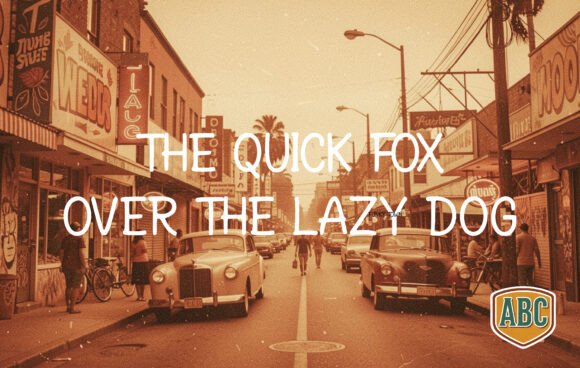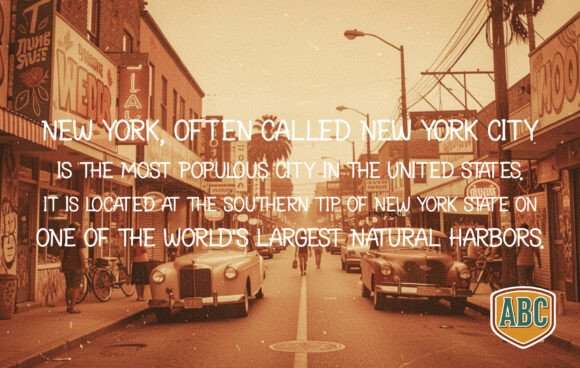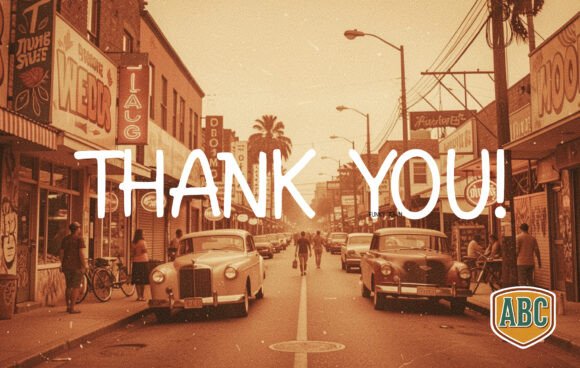
Discover the Vibrant World of Funky Town Font
I’ll never forget the design moment that led me to Funky Town Font. I was working on a retro-themed poster project, and I just couldn’t find the right font to capture the gritty, energetic spirit of vintage street life. My client wanted something that felt alive, something that echoed the spontaneous creativity of retro city signage and hand-painted urban murals. That’s when I stumbled upon Funky Town, and it was love at first sight! 💕
A Font that Embodies Authentic Character and Raw Energy
Funky Town Font is a handwriting typeface that perfectly captures the essence of vintage street life. Designed with a loose, casual rhythm and varying stroke widths, this font feels alive and unapologetically bold. Its slightly irregular letterforms and tall, narrow silhouette make it an ideal choice for retro-themed posters, indie apparel branding, street photography captions, and edgy editorial headers.
Honest Review: The Good and the Quirky
• ✨ Unique and authentic character that adds soul to any project
• ✅ Perfect for retro-themed designs, indie branding, and street photography
• 💥 Highly legible, even in high-contrast environments
• 🎨 OpenType features, glyphs, and stylistic alternates for added creativity
⚠️ While Funky Town Font is incredibly versatile, it may not be the best choice for very formal or traditional designs. Its quirky character is perfect for adding personality, but it may not suit every project. 🤔 Additionally, some users may find the font’s irregularities challenging to work with, but I believe this is part of its charm.
The Story Behind Funky Town Font
Funky Town Font was inspired by the vibrant street art of the city. Its designer, a passionate typographer, sought to capture the raw energy and creativity of urban murals and signage. The result is a font that feels alive, authentic, and unapologetically bold.
Q: What type of projects is Funky Town Font best suited for?
A: Funky Town Font is perfect for retro-themed posters, indie apparel branding, street photography captions, and edgy editorial headers.
Q: Is Funky Town Font easy to read?
A: Yes, despite its quirky character, Funky Town Font is highly legible, even in high-contrast environments.
Q: Can I access OpenType features with Funky Town Font?
A: Yes, Funky Town Font includes a range of OpenType features, including glyphs and stylistic alternates, which can be accessed in compatible design software.